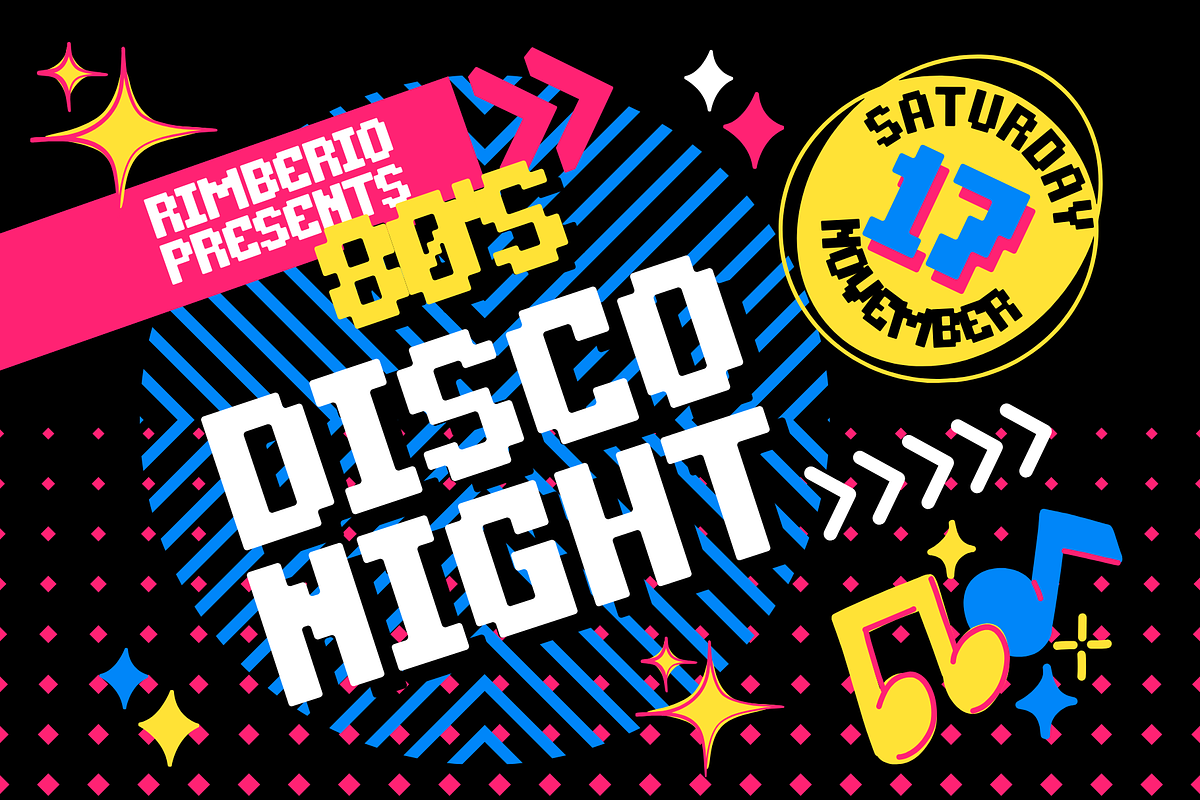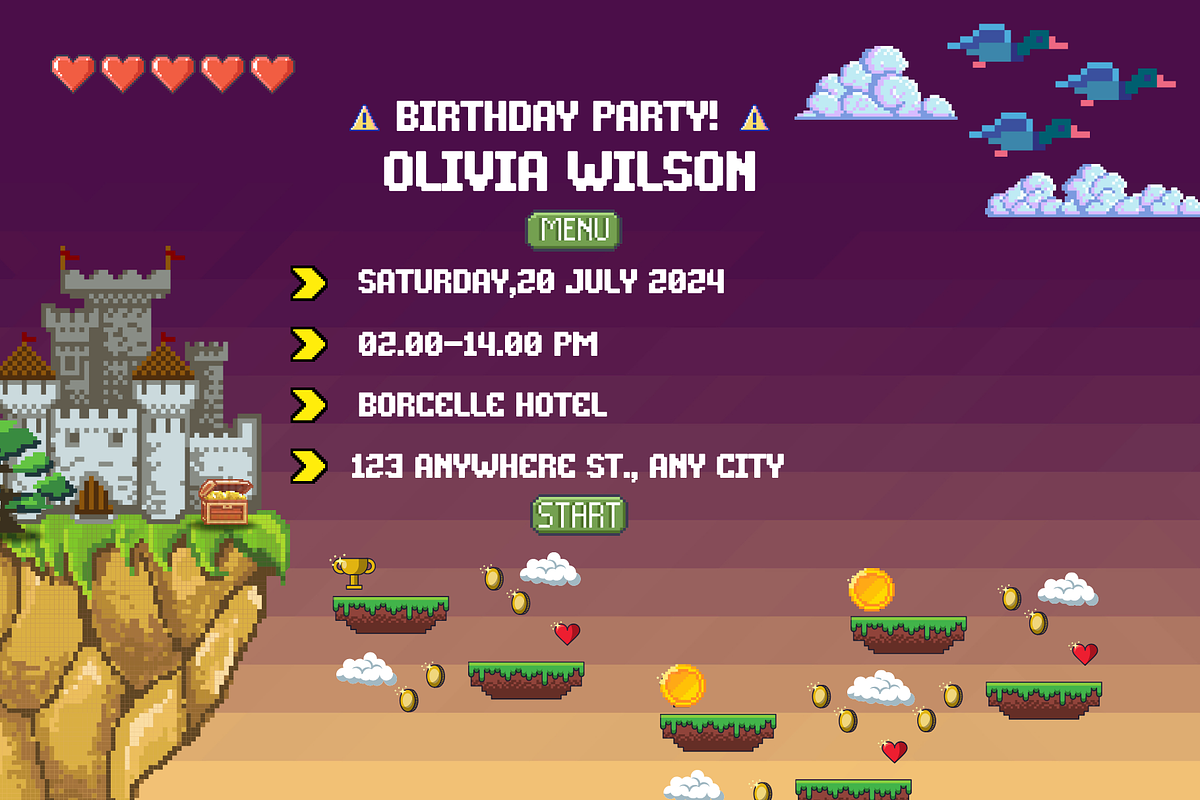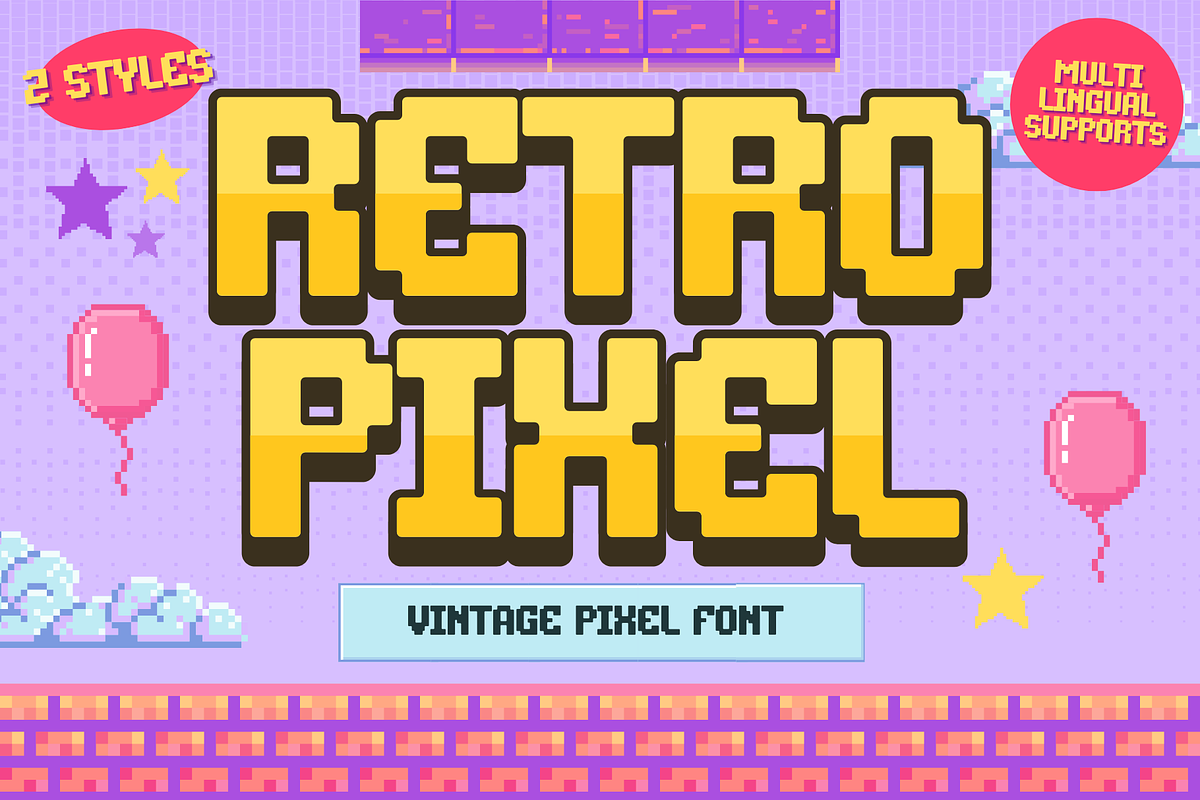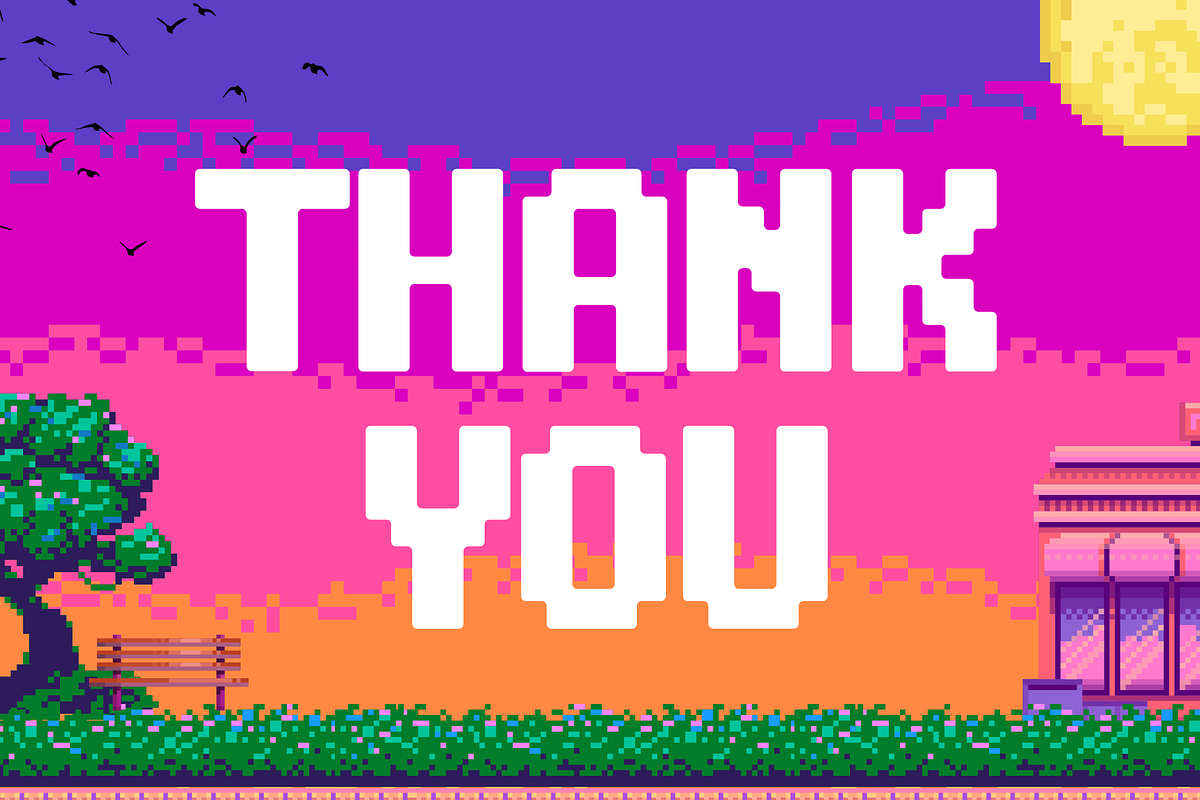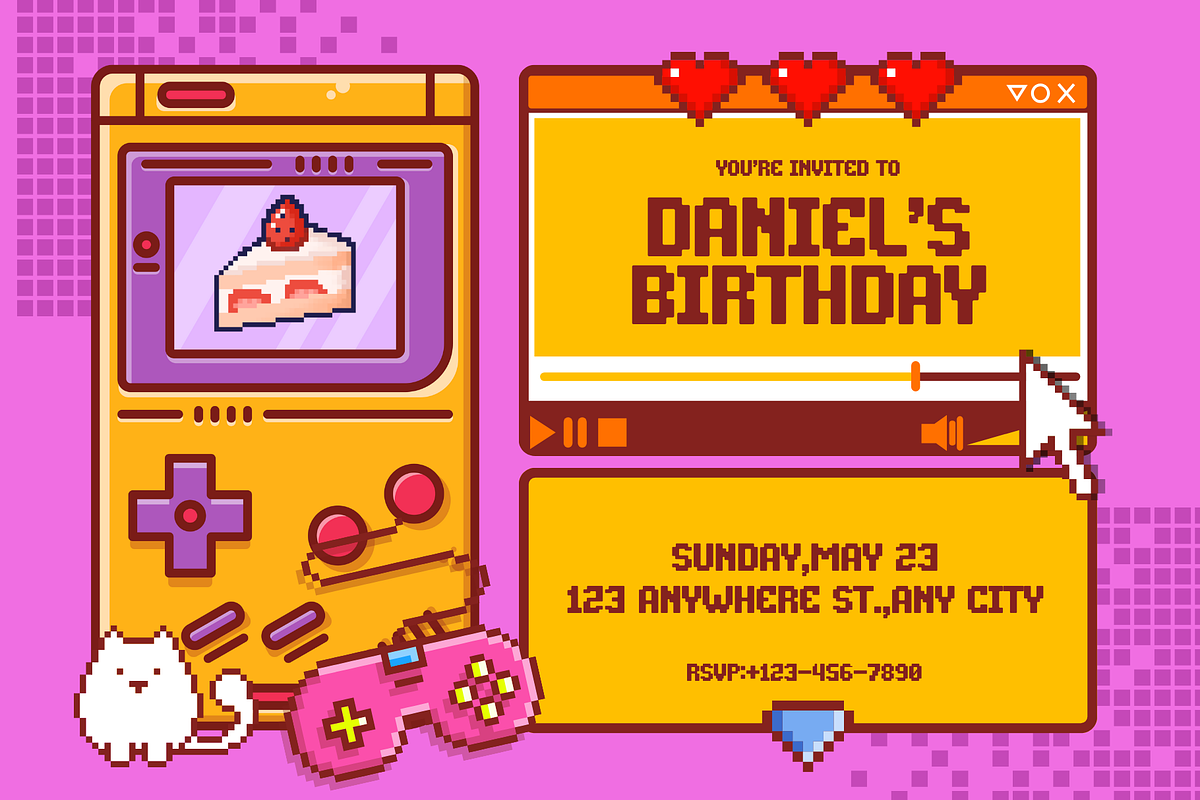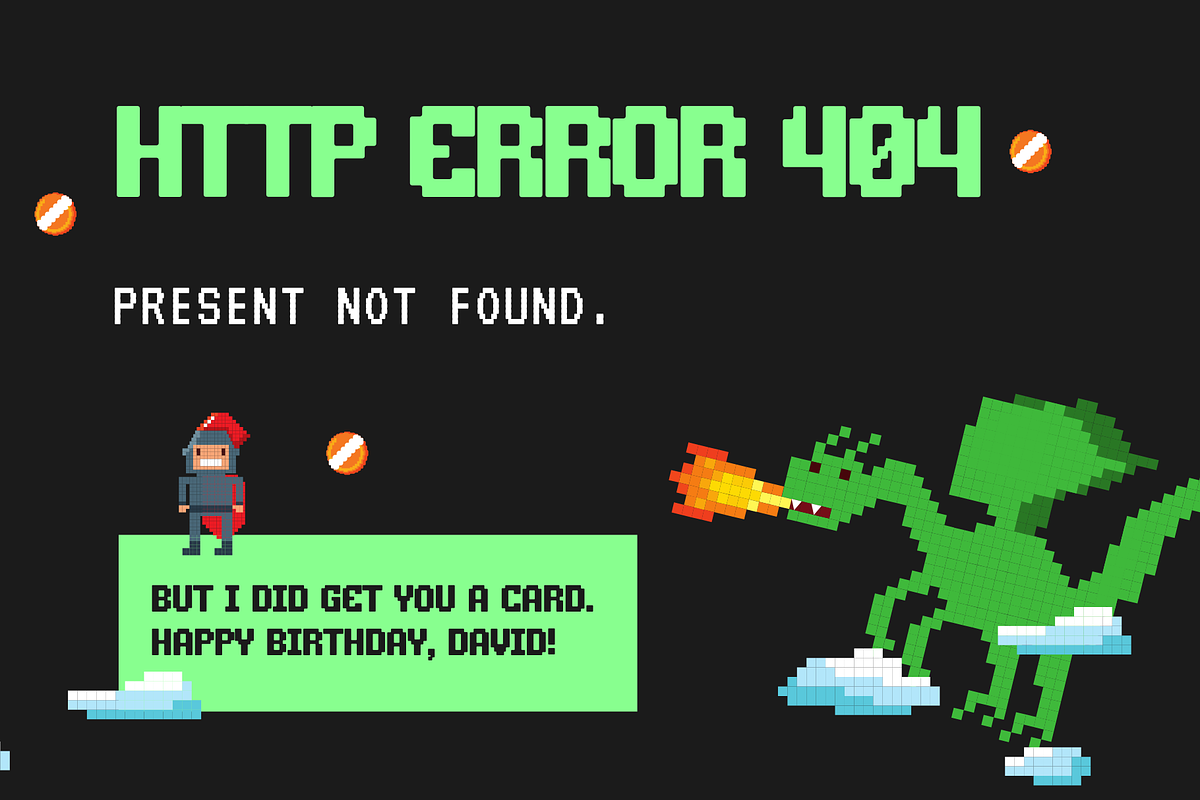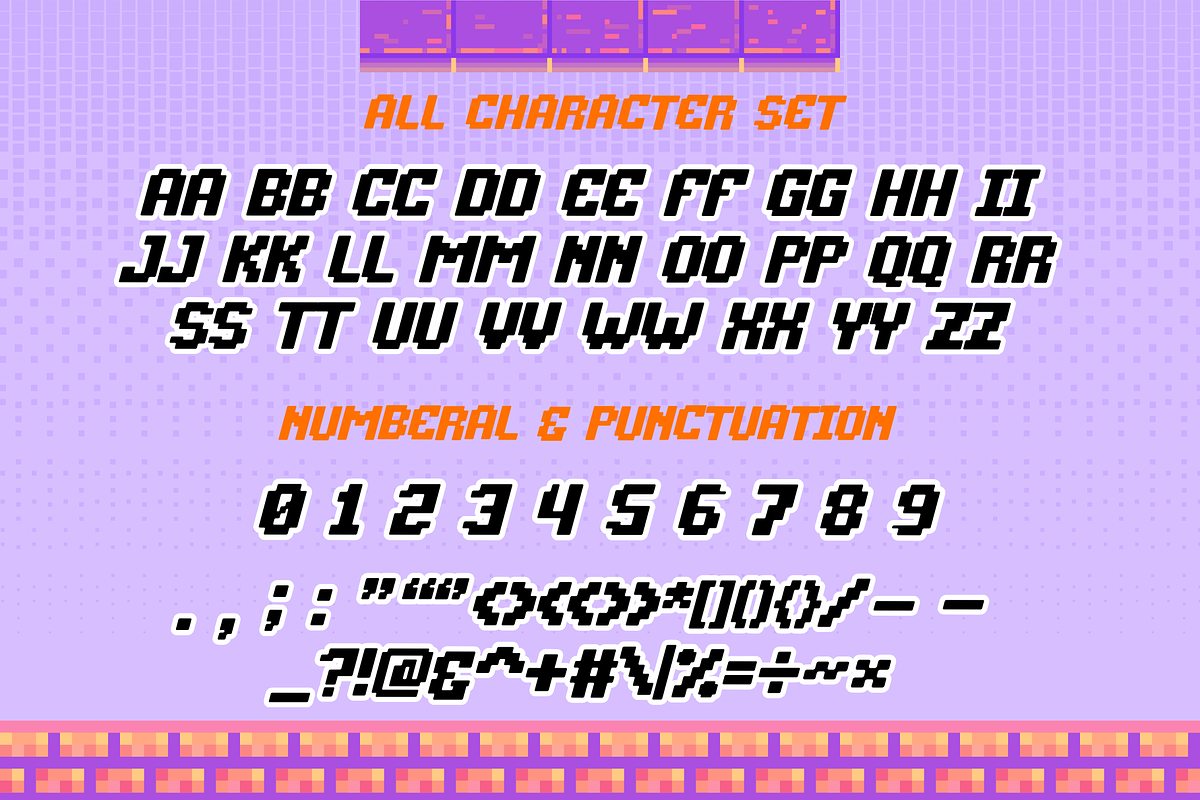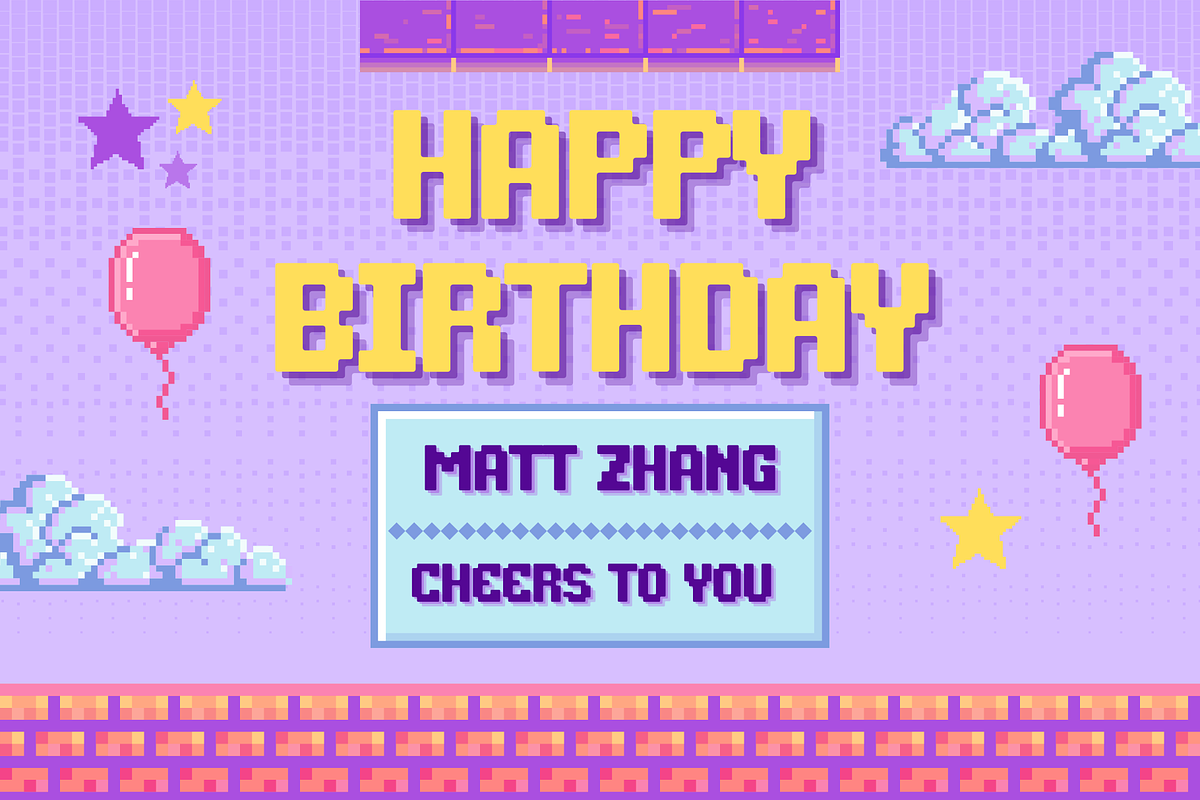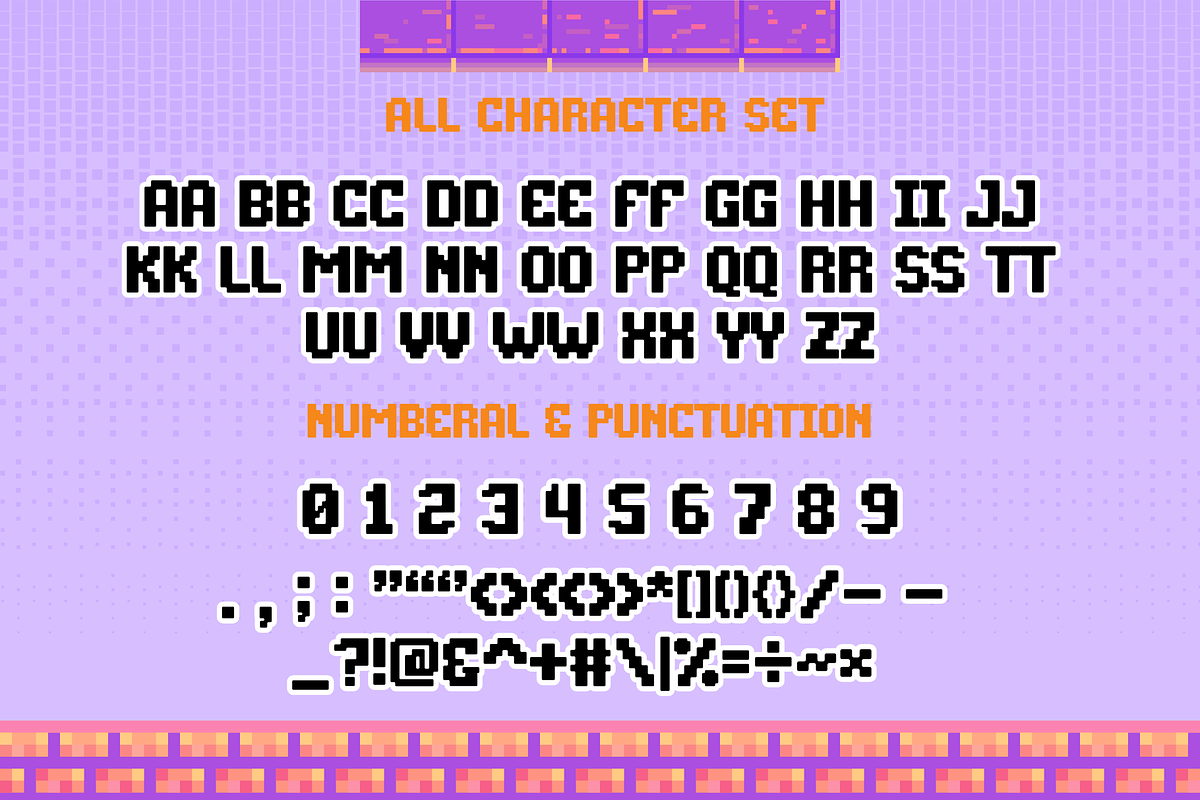
Retro Pixel is a pixel font
Retro Pixel is a nostalgic pixel-style display font crafted with a retro video game aesthetic in mind. Designed in a clean pixel grid, it features both Regular and Italic styles, bringing a dynamic and classic 8-bit look to your creative projects.
Each character is carefully aligned and proportioned, delivering a balanced and consistent appearance across the entire typeface. The geometric shapes and monospaced feel give off a sense of order and familiarity, reflecting the structure of vintage arcade typography.
What makes Retro Pixel stand out is its charming imperfections. Slightly uneven lines and subtle shifts in weight emulate the visual quirks of old-school digital screens, giving your text an authentic retro vibe. The italic version adds a playful slant, great for adding emphasis while keeping the pixel style intact.
For best readability, use Retro Pixel in larger sizes such as headers, logos, or game titles to fully appreciate the detail and character of each letterform.
- 2 styles: Regular & Italic
- Numerals & punctuation